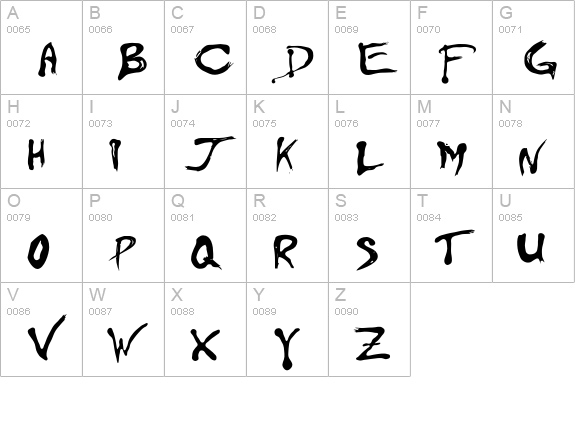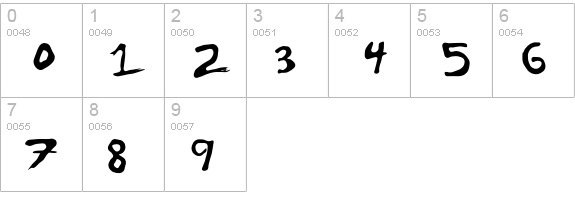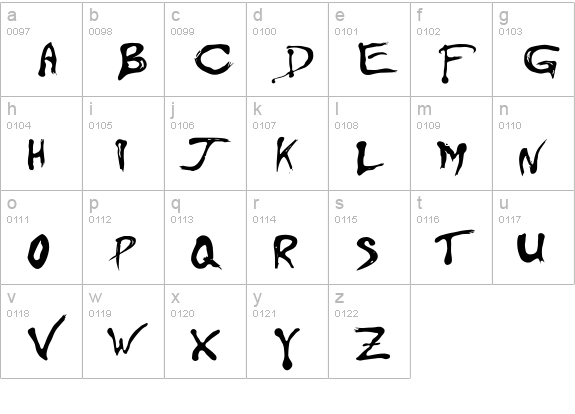
Floydian Font Details
The Floydian font is a unique and stylish typeface that captures the essence of creativity and innovation. With its sleek lines and modern design, this font is perfect for adding a touch of sophistication to any project. Whether you're designing a logo, creating a poster, or crafting a website, the Floydian font is sure to make a statement. Best of all, the Floydian font is completely free to download at FontsMarket.com. So you can bring your design ideas to life without breaking the bank. Don't miss out on the opportunity to enhance your projects with this versatile and eye-catching font. Download the Floydian font today and let your creativity shine!